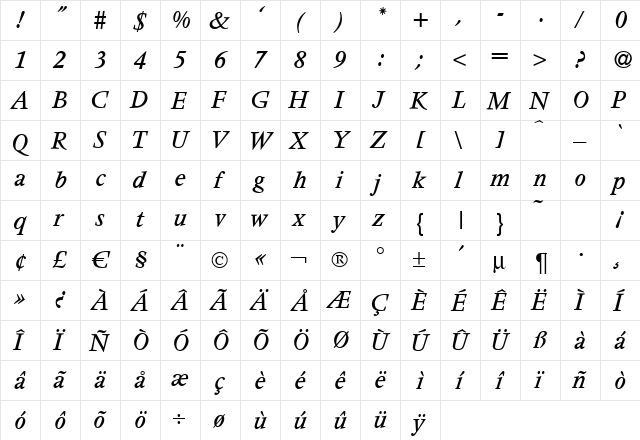
V691-Roman Italic
Design Context for V691-Roman Typeface
V691-Roman is a composed and adaptable typeface that performs quietly and consistently across a wide range of design contexts. The dynamic lean of this cut emphasises speed and emphasis in any layout.
Pro Tip: Try V691-Roman for annotation and caption copy alongside an upright companion — the contrast in angle creates a dynamic but ordered typographic system.